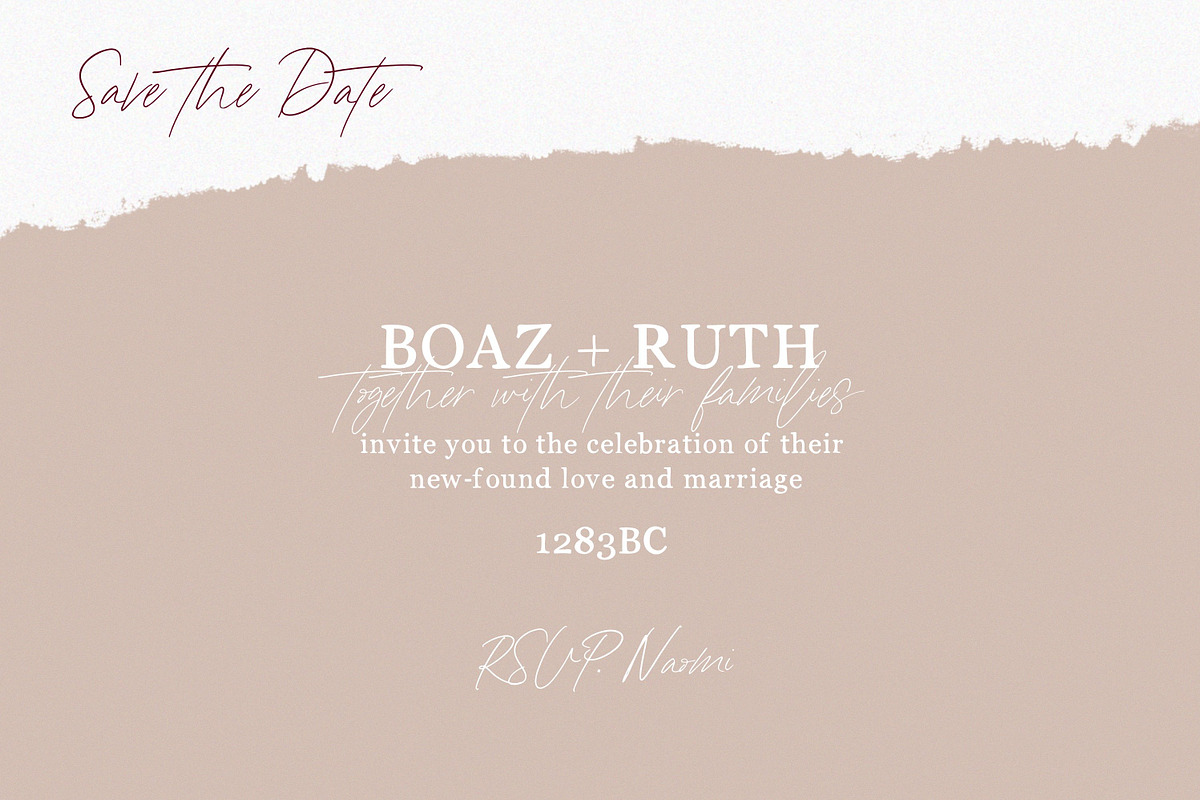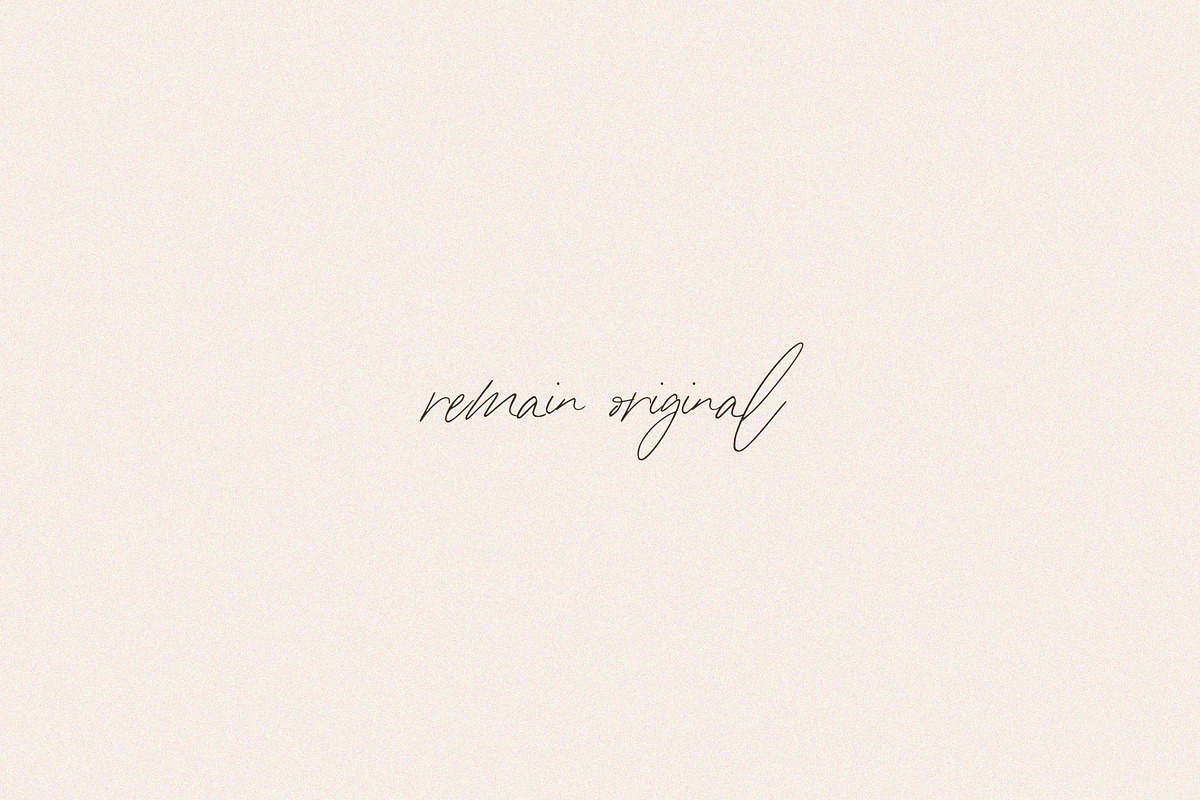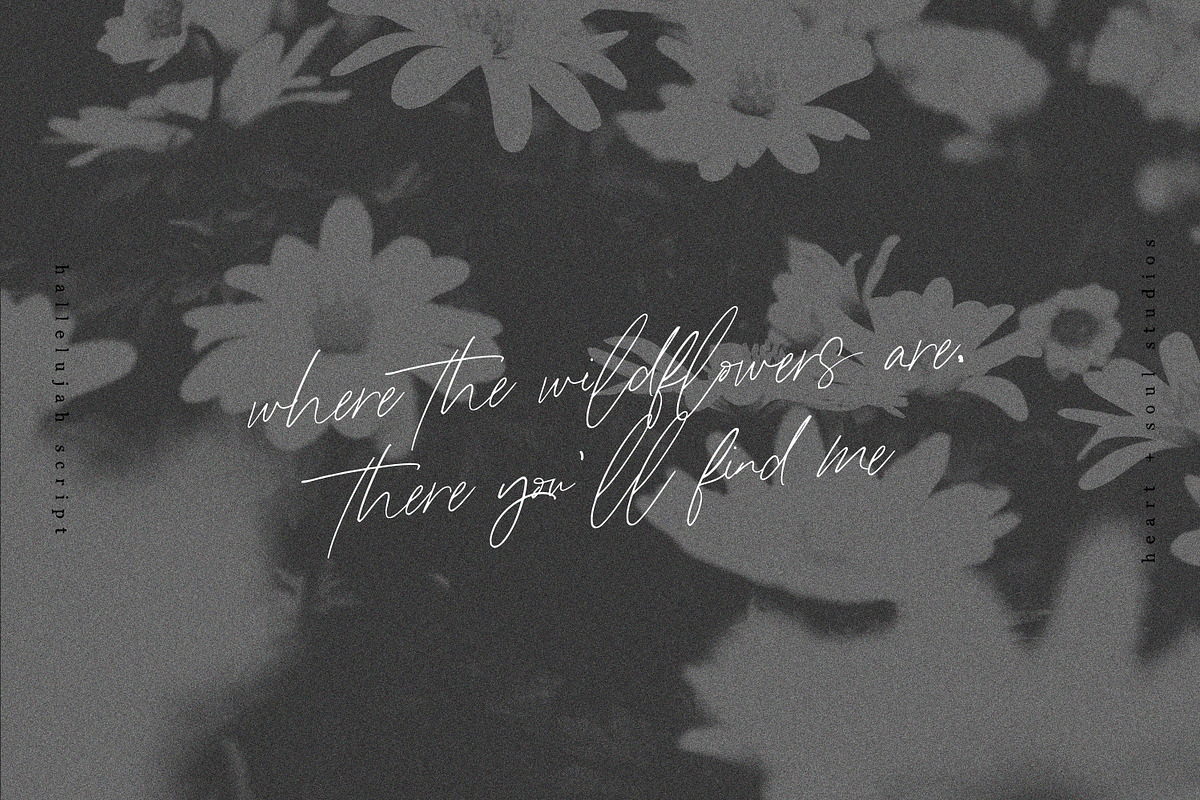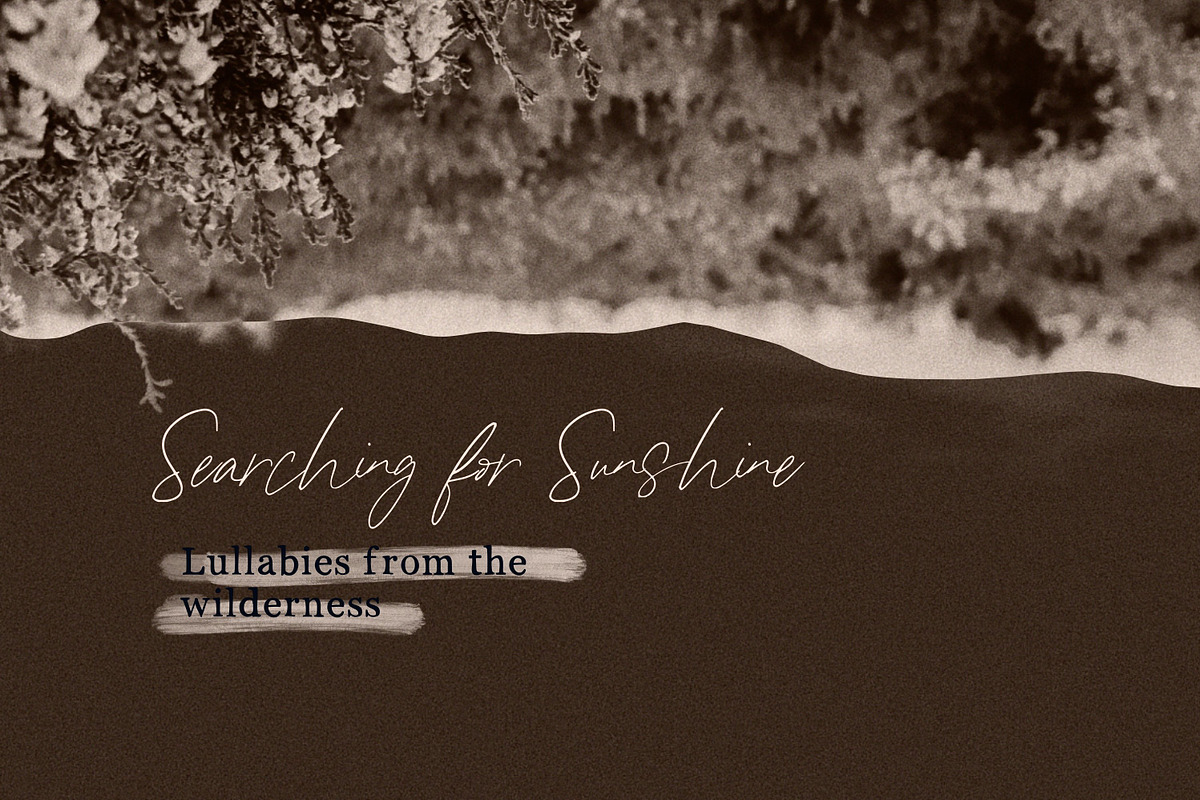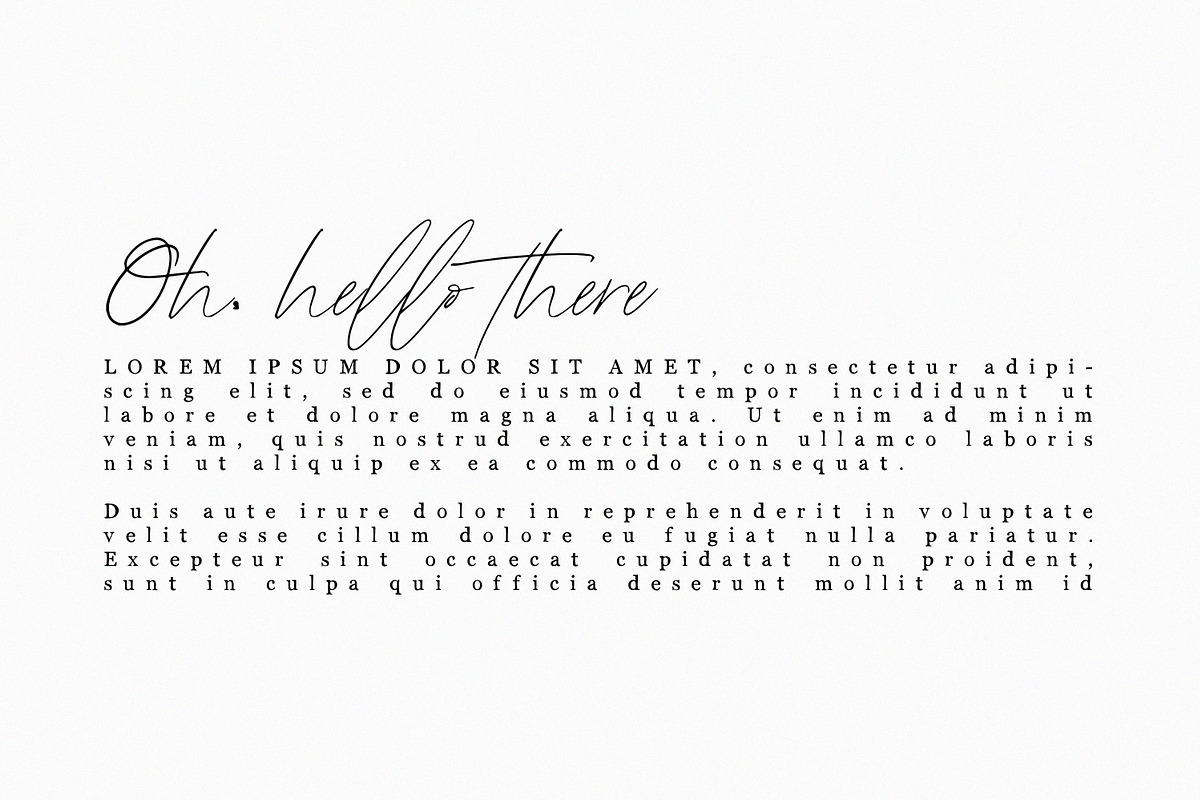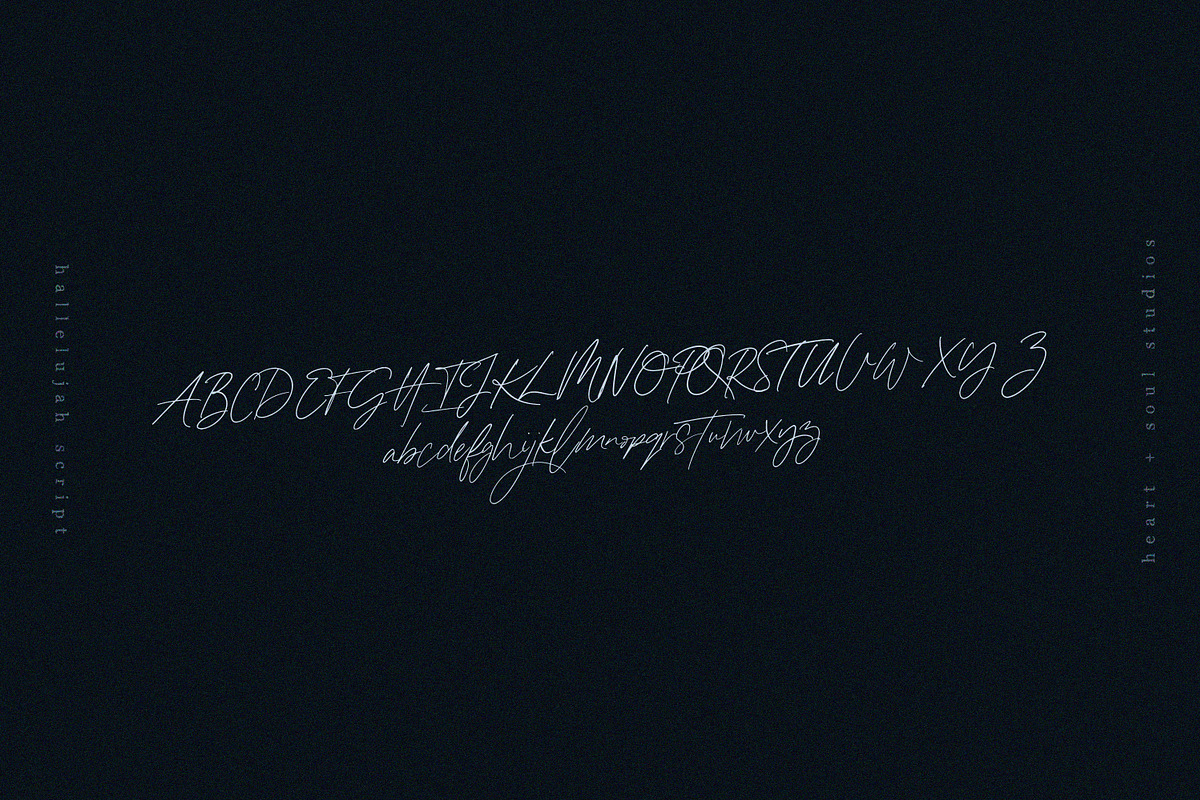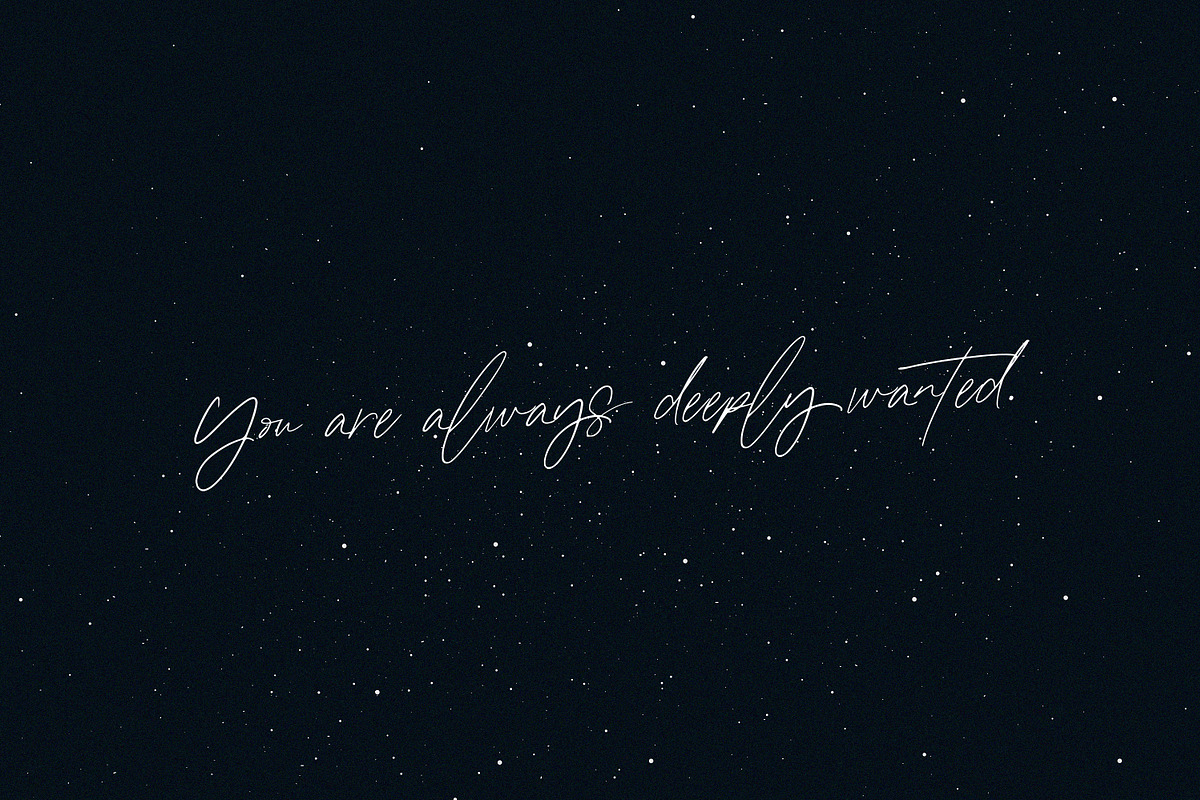
Hallelujah Script | Handwritten Font
Inspired by the worshipping of One who is greater than us, by the awe of who He is and the wonder of the life He gives, Hallelujah Script is an elegant handwritten script font, with a clean, romantic feel.
Perfect for quotes, albums, logos, invitations, websites, branding and more!